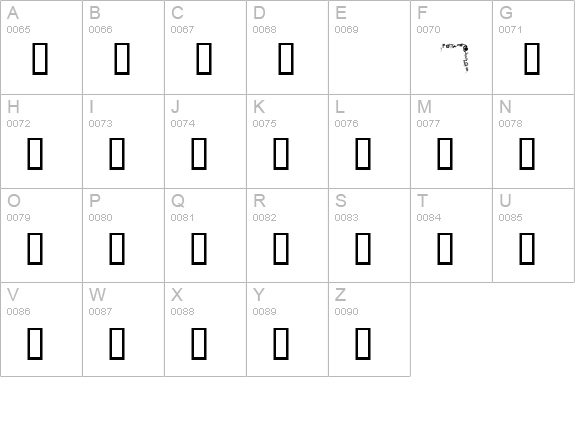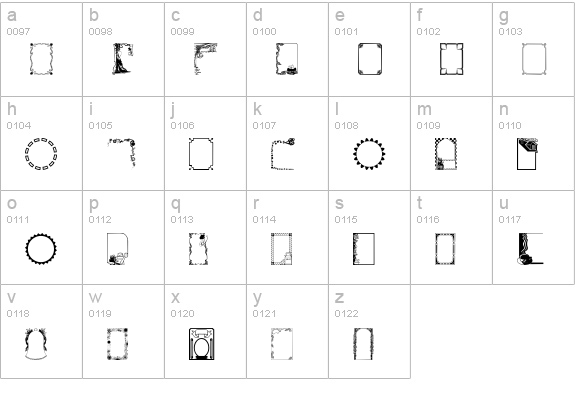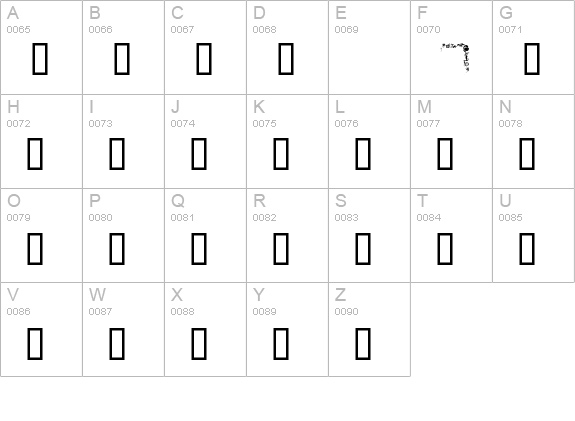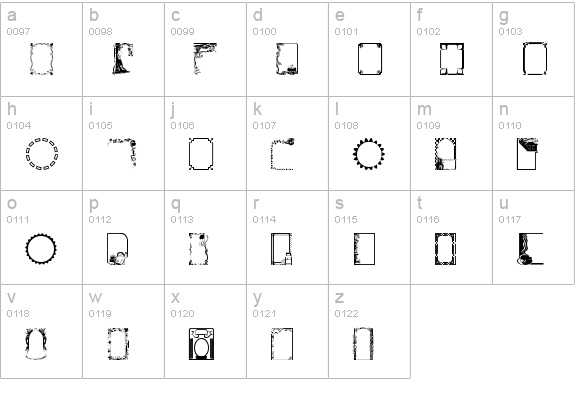
FramesAndBordersII Font Details
FramesAndBordersII is a whimsical and decorative font that adds a touch of charm and elegance to any design project. With its intricate frames and borders, this font is perfect for creating eye-catching invitations, greeting cards, and posters. The ornate details of the letters make it suitable for both formal and informal occasions, adding a unique flair to your creations. Best of all, FramesAndBordersII is available for free download at FontsMarket.com. Whether you're a designer looking to add a special touch to your work or simply someone who appreciates beautiful typography, this font is sure to inspire and delight. Download it today and let your creativity shine with FramesAndBordersII!